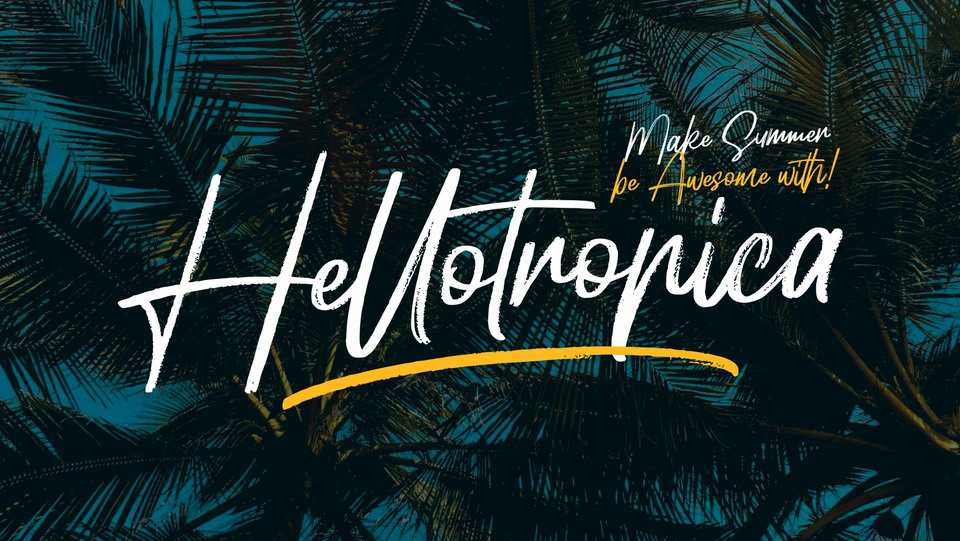
Download Hellotropica font, a stylish script made with natural detailed handbrushes in the style of Summer Vibes. Hellotropica is versatile for poster, logotype, labels, book cover.
Designer: Garisman Studio